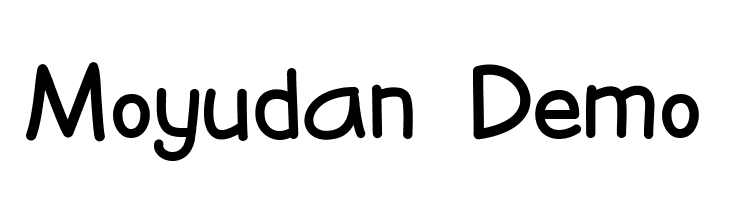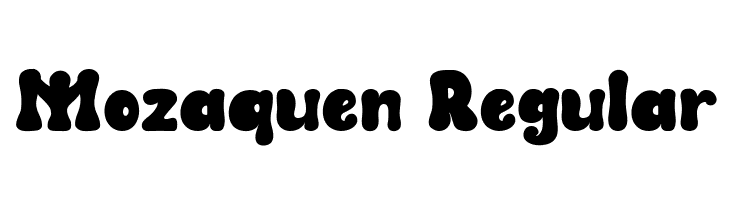
A bold, flowing script font with elegant curves and dynamic flourishes.
( Typhoon Type - Suthi Srisopha - www.typhoontype.net )
A dynamic and elegant script font with flowing letterforms and intricate swashes.
A dynamic, flowing script font with bold, elegant letterforms.
A whimsical font with letters designed as vehicles, full of movement and creativity.
( Fonts by Des Gomez )
A playful, hand-drawn font with bold, rounded characters and quirky details.
A bold, dynamic font with tall, narrow letters and a modern, energetic style.
( Fonts by Movus Munay )
A bold, brush-style font with dynamic and expressive strokes.
A bold, playful font with thick, rounded strokes and a cartoonish flair.